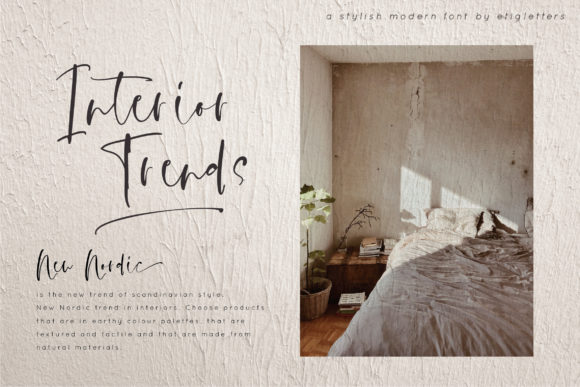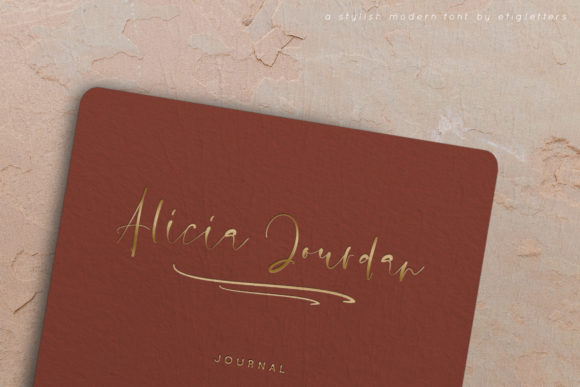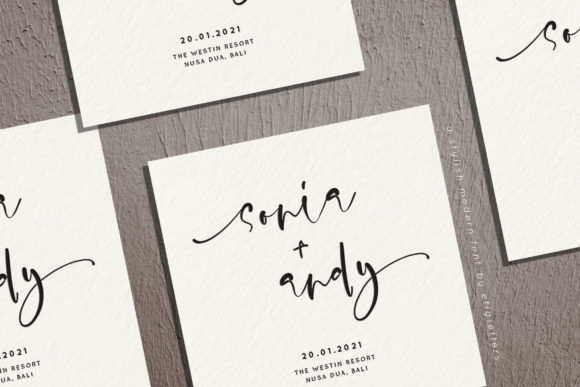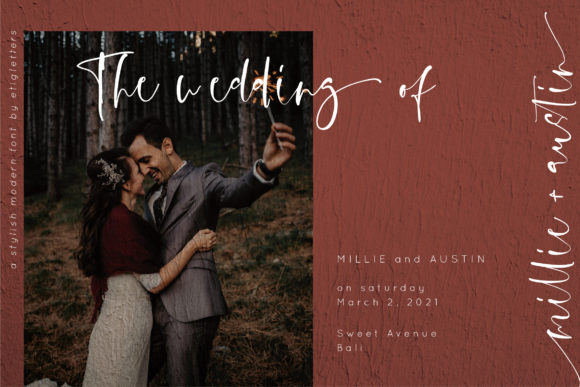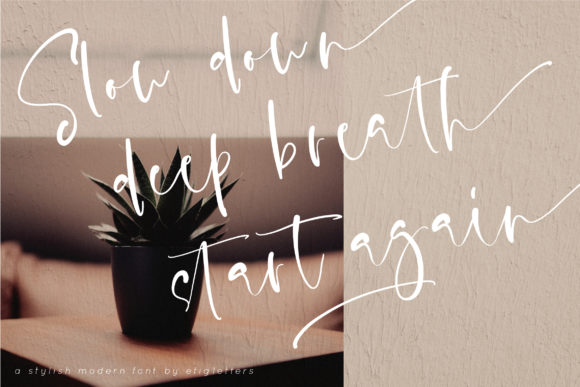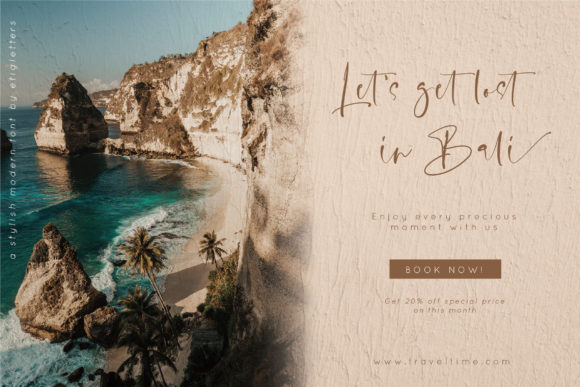
Evanston Font: Elevate Your Designs with Elegance and Sophistication
Are you tired of using the same old fonts in your designs? Look no further than Evanston, an elegant and flowing handwritten font that’s sure to take your projects to the next level. With its beautiful calligraphic influences, smooth lines, and stunning alternates, Evanston is the perfect choice for designers and crafters looking to add a touch of sophistication to their work.
What Makes Evanston Special?
Evanston is more than just a pretty font – it’s a game-changer. Here are just a few of the features that make it stand out:
- PUA Encoded: Evanston is PUA (Private Use Area) encoded, which means you can access all of the glyphs and swashes with ease. This makes it easy to customize your text and add your own personal touch.
- Varying Baseline: Evanston features a varying baseline, which gives it a natural, handwritten feel. This makes it perfect for creating beautiful, flowing text that’s easy to read.
- Smooth Lines: The lines in Evanston are smooth and flowing, giving it a elegant and refined feel. This makes it perfect for creating sophisticated designs that are sure to impress.
- Gorgeous Glyphs: Evanston features a wide range of gorgeous glyphs, including stunning alternates and swashes. This gives you the flexibility to create unique and customized text that’s all your own.
The Benefits of Using Evanston
So why choose Evanston for your designs? Here are just a few of the benefits you can expect:
- Add a Touch of Elegance: Evanston is the perfect way to add a touch of elegance and sophistication to your designs. Whether you’re creating a logo, a wedding invitation, or a social media graphic, Evanston is sure to make your project stand out.
- Stand Out from the Crowd: With its unique and beautiful design, Evanston is sure to help you stand out from the crowd. Whether you’re a designer, a crafter, or a small business owner, Evanston can help you create designs that are truly unforgettable.
- Easy to Use: Despite its sophisticated design, Evanston is easy to use and customize. Whether you’re a seasoned designer or a beginner, you’ll be able to get started with Evanston right away.
Who Can Use Evanston?
Evanston is perfect for a wide range of designers and crafters, including:
- Graphic Designers: Whether you’re creating logos, brochures, or social media graphics, Evanston is the perfect choice for adding a touch of elegance and sophistication to your designs.
- Crafters: If you’re a crafter who loves to create handmade cards, invitations, and other paper crafts, Evanston is a great choice for adding a personal touch to your projects.
- Small Business Owners: If you’re a small business owner who wants to create a professional and polished brand, Evanston is a great choice for creating logos, business cards, and other marketing materials.
In conclusion, Evanston is an elegant and flowing handwritten font that’s perfect for designers and crafters who want to add a touch of sophistication to their work. With its beautiful calligraphic influences, smooth lines, and stunning alternates, Evanston is sure to take your projects to the next level. Whether you’re a seasoned designer or a beginner, Evanston is easy to use and customize, making it the perfect choice for anyone looking to create beautiful and professional designs.